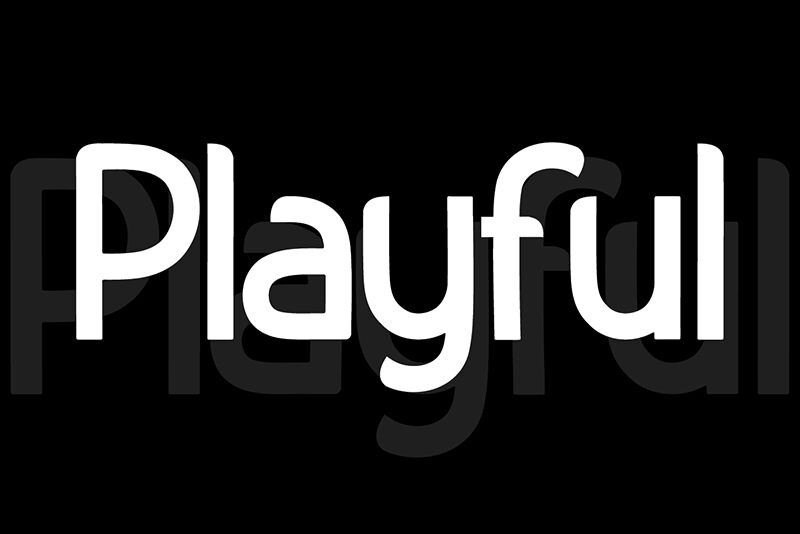
Playful font designed by Erik Supriyanto is a free sans serif font that looks modern and approachable. This font was designed for simplicity with uncomplicated arrangements and a minimalistic approach. Each character is structured according to mathematical relief, focusing on circular shapes and horizontal lines.
Without distractions or embellishments, each line and shape appears to have a purpose. Use Playful in advertisements and branding designs or in educational purposes for magazines, newspapers, and brochures. Its flawless display is also ideal for headlines, posters, titles, flyers, and applications.
Playful is a minimal and neat sans serif font that easily complements a wide range of projects. Incorporate it into your creative ideas and watch how it enhances their appeal.